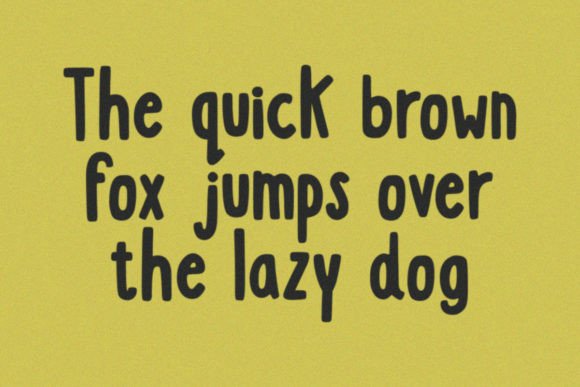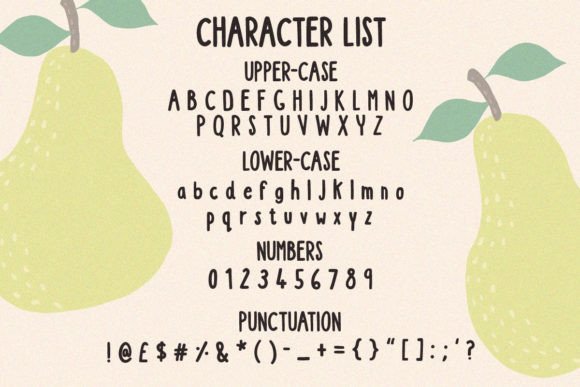
Introduction to Quite Pear Font
Quite Pear is a quirky handwritten typeface perfect for any fun design work.
This font can be used for anything such as t-shirt designs, phone cases, greeting cards, invitations, mugs and so much more Get creative.
Key Features of Quite Pear Font
Why Choose Quite Pear Font?
Quite Pear Font offers exceptional quality and versatility, making it a valuable addition to your design toolkit. Whether you’re creating for personal projects or commercial use, Quite Pear Font delivers professional results.